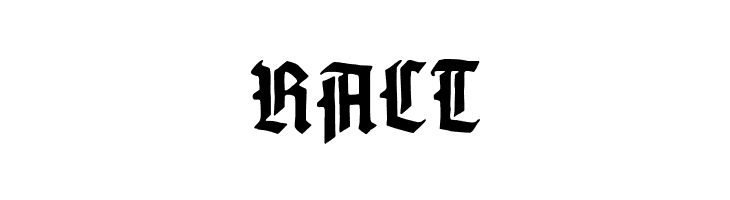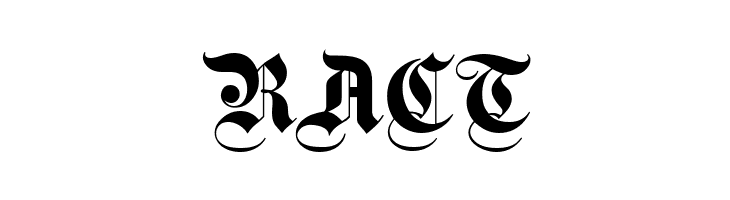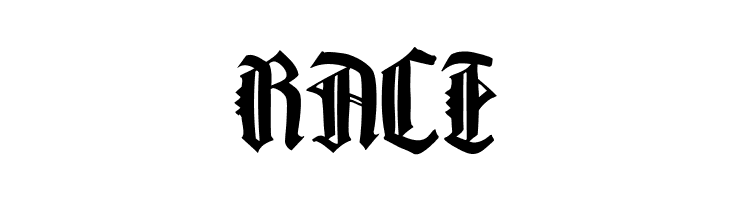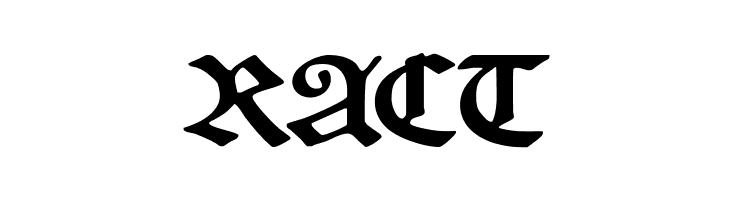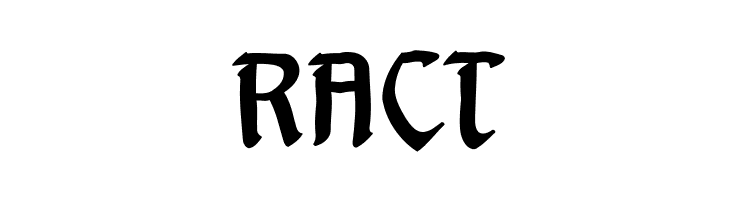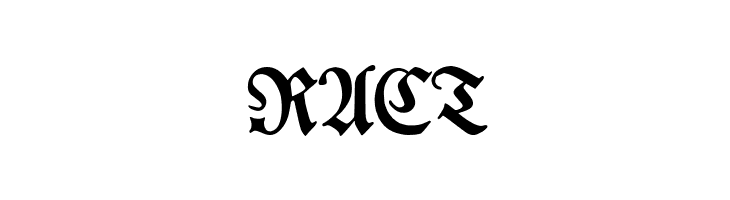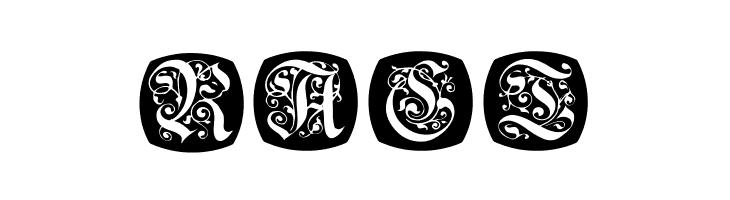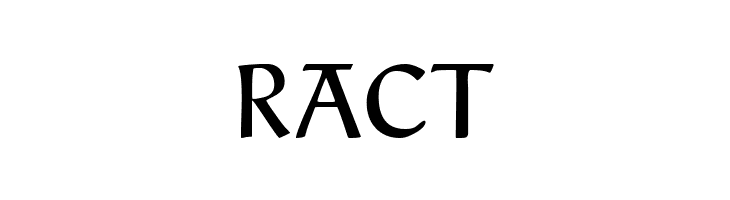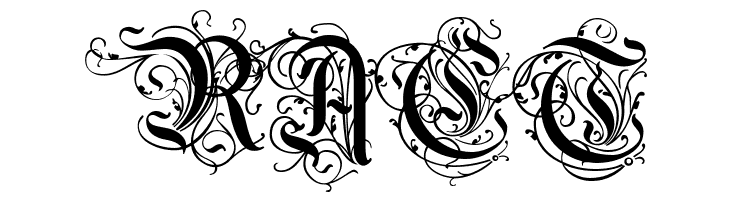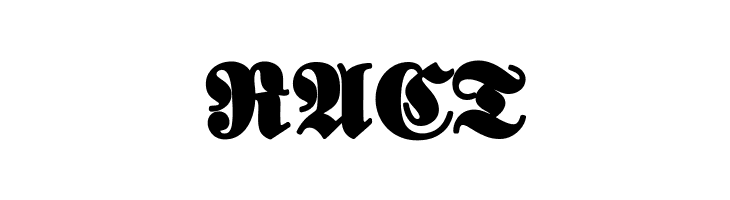
• Gotenburg A Bold
A bold, blackletter font with intricate, angular designs ideal for dramatic and historical themes.
• Fette Kanzlei
A bold Blackletter typeface with ornate, dramatic flourishes.
• Fette Kanzlei OsF
A bold, ornate blackletter font with Gothic flourishes and sharp angles.
• HappyFraxx
A bold, dramatic Blackletter-style font with intricate details and sharp, angular lines.
• SchneidlerSchwabacher
• ArtNoveauDecadente
A bold, blackletter-inspired font with ornate, angular characters.
• Breitkopf Fraktur
A traditional Blackletter font with ornate, angular strokes and historical elegance.
• FrakturNitials
An ornate, blackletter-style font with decorative, enclosed characters.
• Typographer Rotunda
A classic blackletter font with sharp, angular lines and high contrast, ideal for traditional and decorative uses.
• Rothenburg Decorative
An ornate, decorative blackletter-inspired font with intricate flourishes.
• ElephantaBlack
A bold, blackletter-inspired font with ornate and dramatic letterforms.
• WaldarbeiterGotisch
A bold, angular Blackletter font with a historical Gothic style.
• GoticaCaps
A bold, ornate blackletter font with medieval flair and intricate details.
• WieynkFrakturInitialen
An ornate, Gothic-inspired font with intricate flourishes and blackletter forms.
• WieynkFrakturZier Bold
A bold, decorative Blackletter font with intricate Gothic elements.
• WieynkFraktur Bold
A bold, intricate Blackletter font with ornate and angular letterforms.
• WieynkFraktur
A traditional Blackletter font with ornate, angular letterforms and a vintage aesthetic.
• SchneidlerSolitaires
A bold, decorative blackletter font with high contrast and ornate details.
• Steelplate Textura
• SteelplateTextura
A bold, dramatic Blackletter font with intricate, ornate letterforms.
• Barlos-RandomRings
A decorative blackletter font with characters enclosed in circular borders.
• Rediviva
A classic blackletter font with ornate, decorative letterforms and strong visual impact.